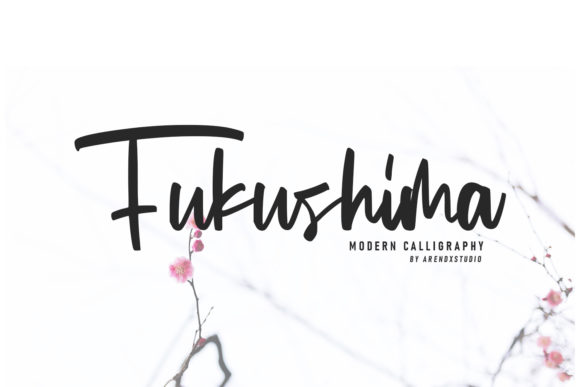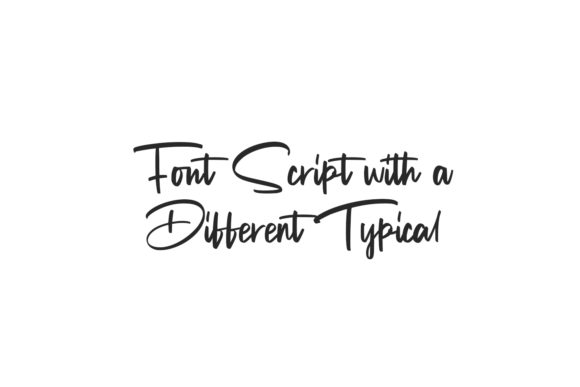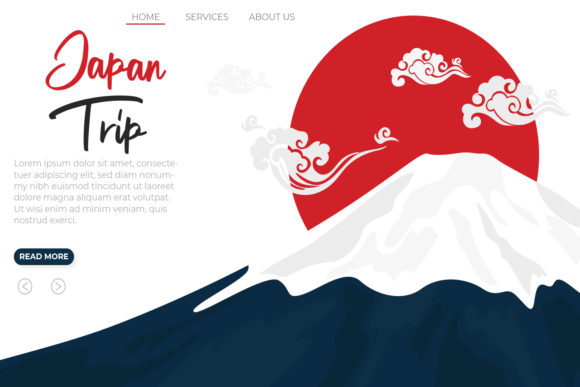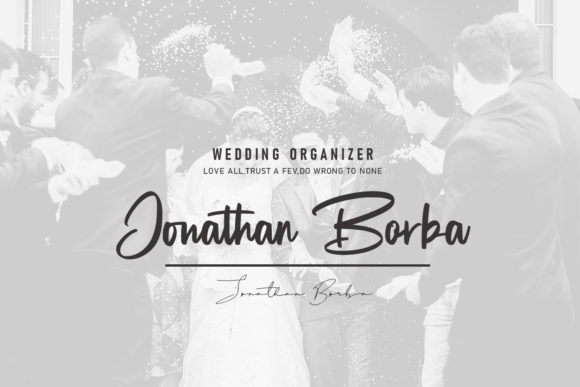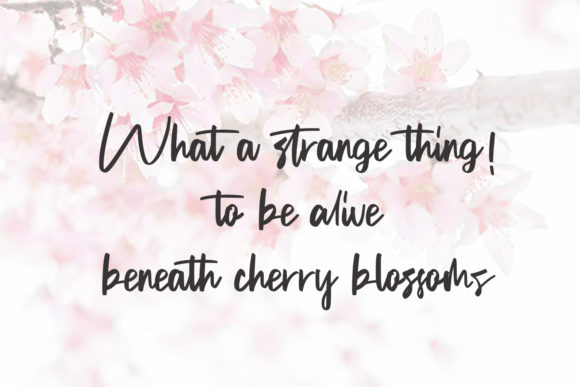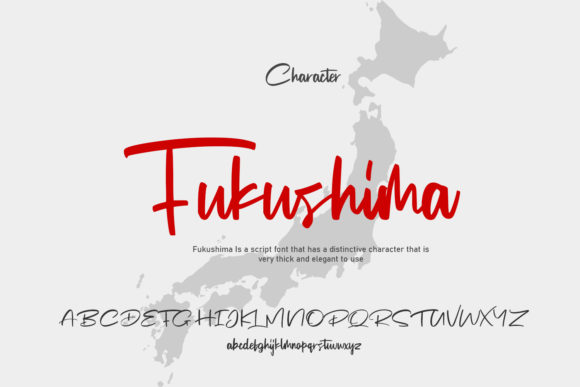
The Fukushima Font: A Timeless Handwritten Treasure
Have you ever been in the middle of a design project, and suddenly, you just can’t seem to find the right font? I know I have! It was a beautiful wedding invitation design project, and I was struggling to find a font that captured the elegance and playfulness I was going for. That’s when I stumbled upon the Fukushima font, and let me tell you, it was love at first sight! 💕
A Personal Review: What I Love About Fukushima
The Fukushima font is an incredibly unique and timeless handwritten font, designed with the help of a lovely brush pen. Here’s what I love about it:
- ✨ Versatility: This font is incredibly versatile and can be used for a wide range of projects, from wedding invitations to social media posts.
- ✅ Elegant and Playful: Fukushima has a perfect balance of elegance and playfulness, making it suitable for both formal and informal designs.
- 💫 Unique Character: Each letter has a unique character that sets it apart from other handwritten fonts.
While I absolutely adore the Fukushima font, there are a few small quirks to be aware of:
- 🤔 Limited use in body text: Due to its unique and decorative nature, Fukushima might not be the best choice for long body text.
- ⚠️ Some letters may require manual kerning: As with many handwritten fonts, some letters may require manual kerning to achieve optimal results.
The Designer Inspiration Behind Fukushima
While I couldn’t find any information on the designer’s background, I imagine that the creator of Fukushima was inspired by traditional Japanese calligraphy and the beauty of handwritten letters. The font’s unique character and elegant feel make it a perfect choice for designs that require a touch of sophistication and playfulness.